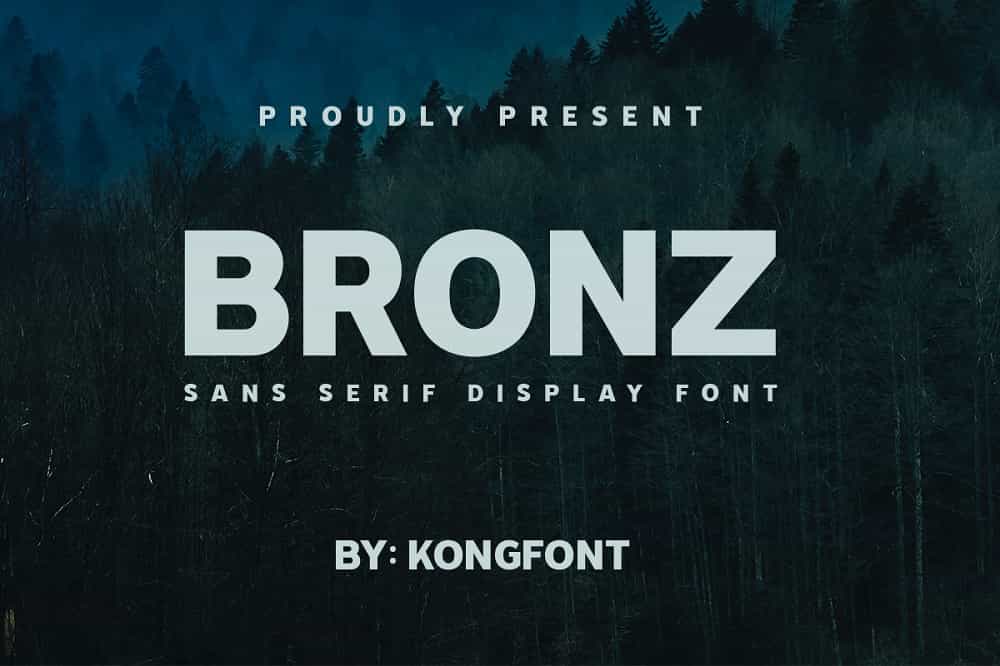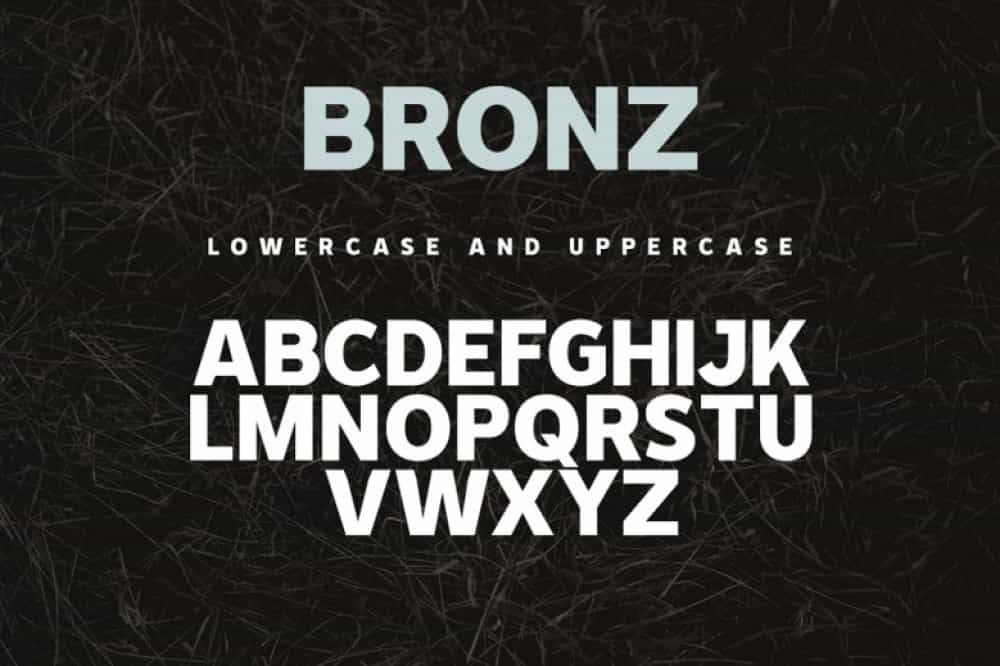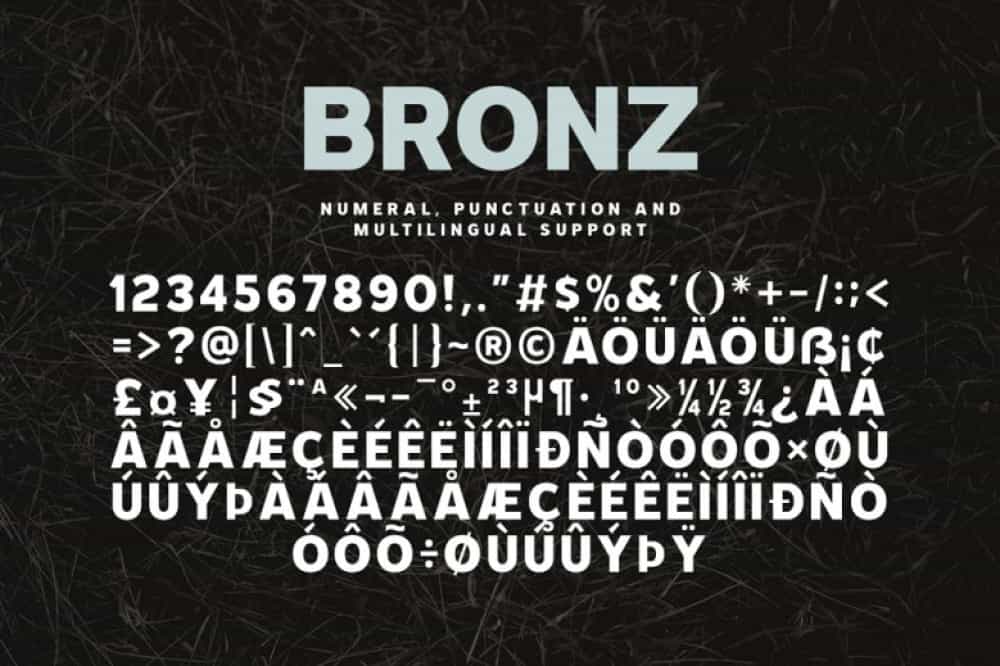
Bronz is sans serif display font. For a sans-serif font that is legible and with which you will not have any difficulties when working, choose a Bronz Font. Bronz Font is one of the simplest and elegant fonts that give a very sleek look to the material. This font is of the modern generation and is quite bold in appearance. This font is suitable for web and print solutions like brochures, calendars, newspaper, books, magazines, and more.